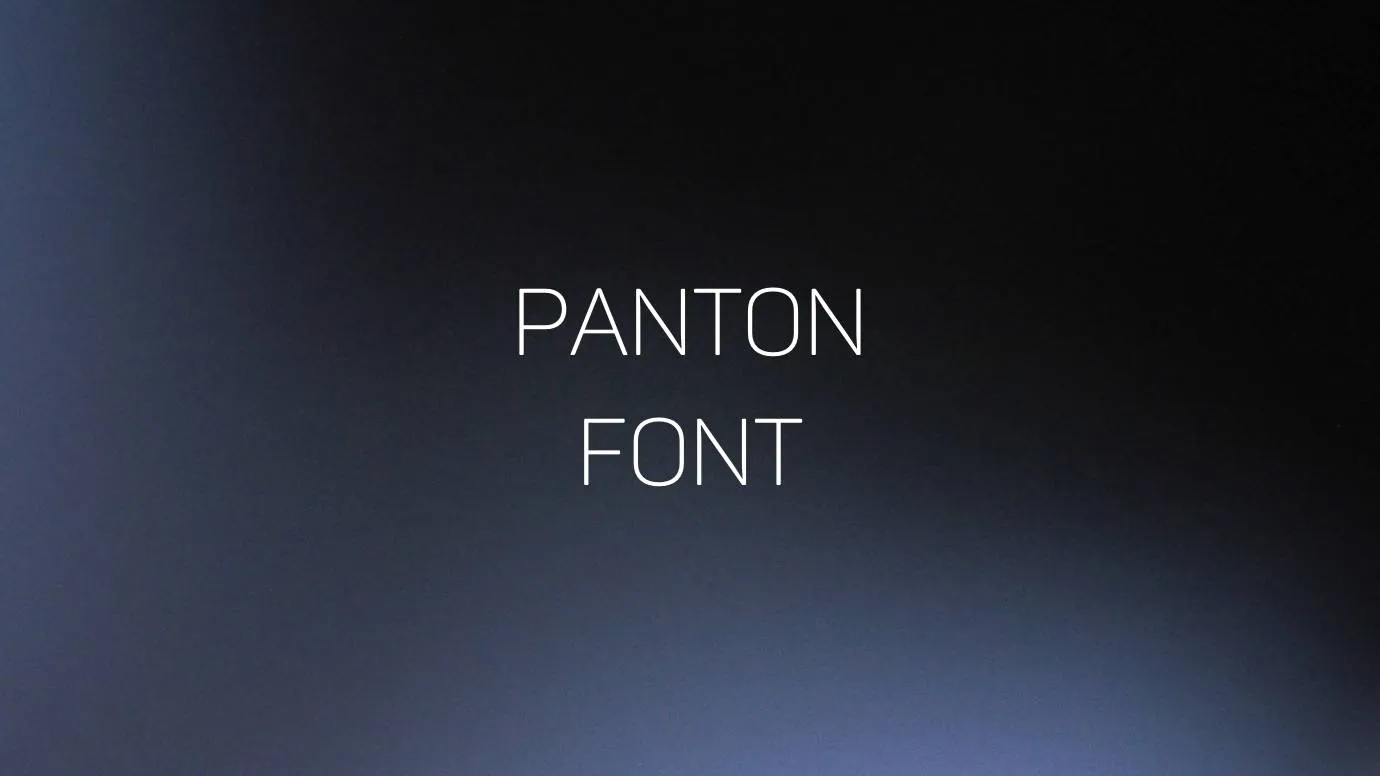
Panton Font Family is a sans-serif typeface that was designed by Svetoslav Simov and Ivan Petrov. This typeface was released by Font Fabric foundry. This font family contains 54 fonts with its clear legibility, impressive styles, and geometric versions, and also has uprights 19 different Italics, and 16 icon sets as a bonus, so the font has been inspired by the classic grotesque typefaces.
Kuro Font and Wok Sans are very similar to Panton Font and you can find the same qualities in these fonts, which are available in this font. This font is great to work in both print and web design places.
Panton Font